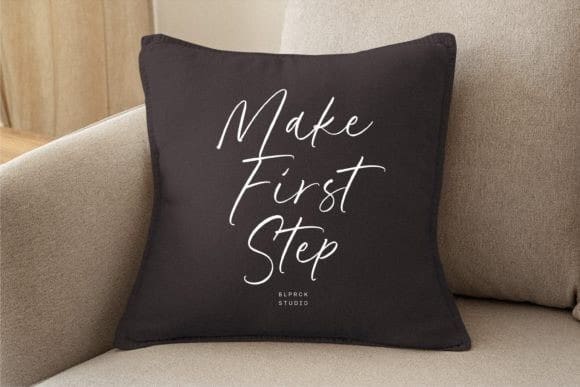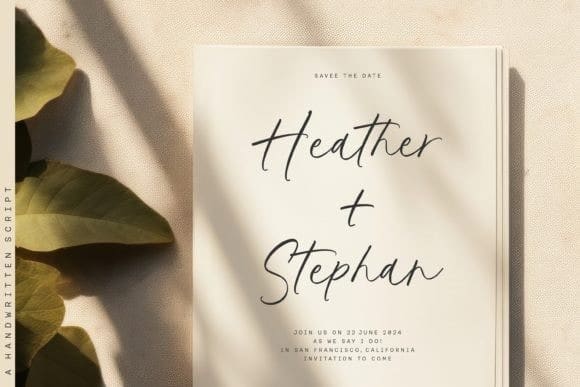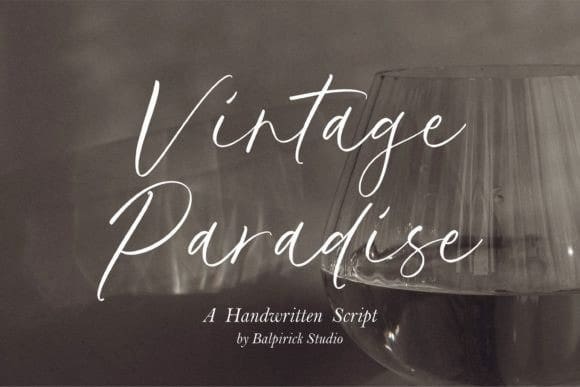
Vintage Paradise Font
Vintage Paradise Font is a Handwritten Script Font that’s perfect for adding a personal touch to your design projects! With its natural, organic feel and unique character.
Crafted with care and attention to detail, this font is incredibly versatile and can be used for a range of design projects, including logos, branding, invitations, and more. Its modern, handwritten style gives it a unique character that’s sure to make an impact.